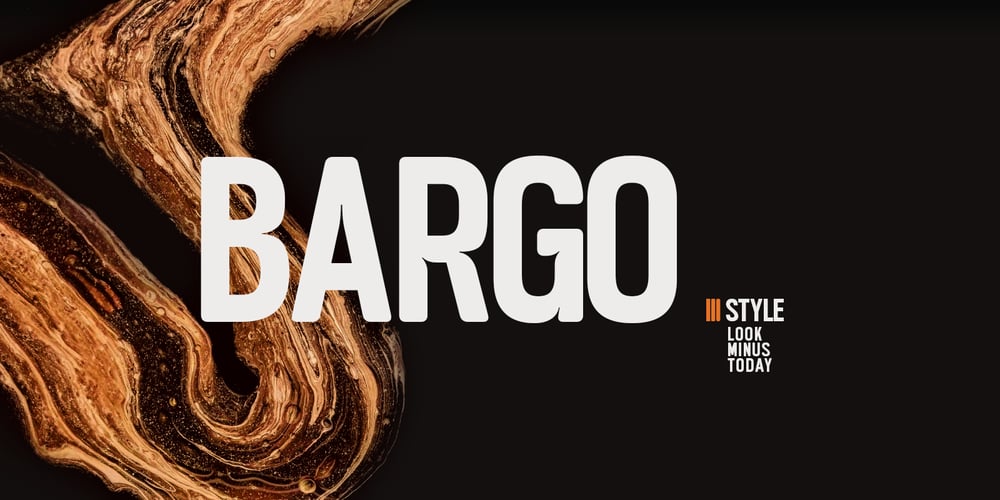
Bargo
Bargo font
Bargo Font Family was designed by Arif Rijal and published by Look Minus Today. Bargo contains 3 styles and family package options. Introducing Bargo – Sans Serif 3 Styles by Look Minus Today.Behind these 3 styles, we want to combine a typeface that can provide a different perspective. Regular which gives